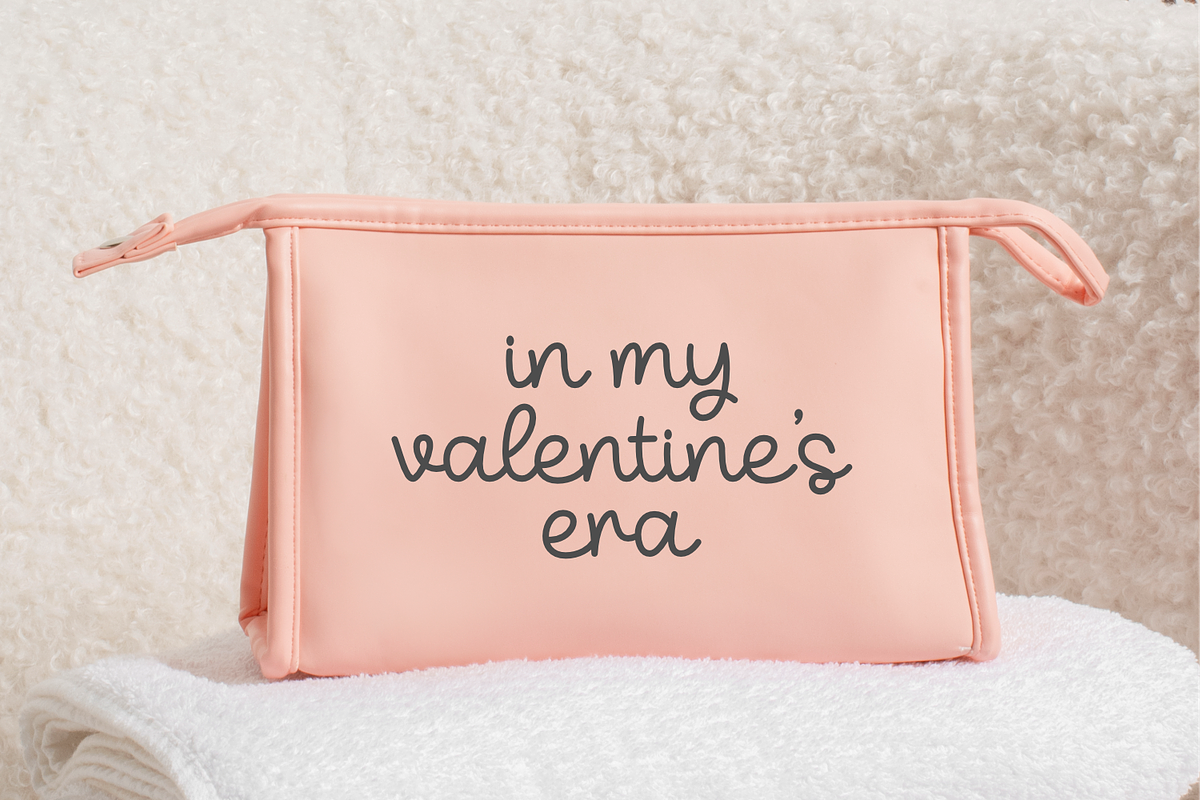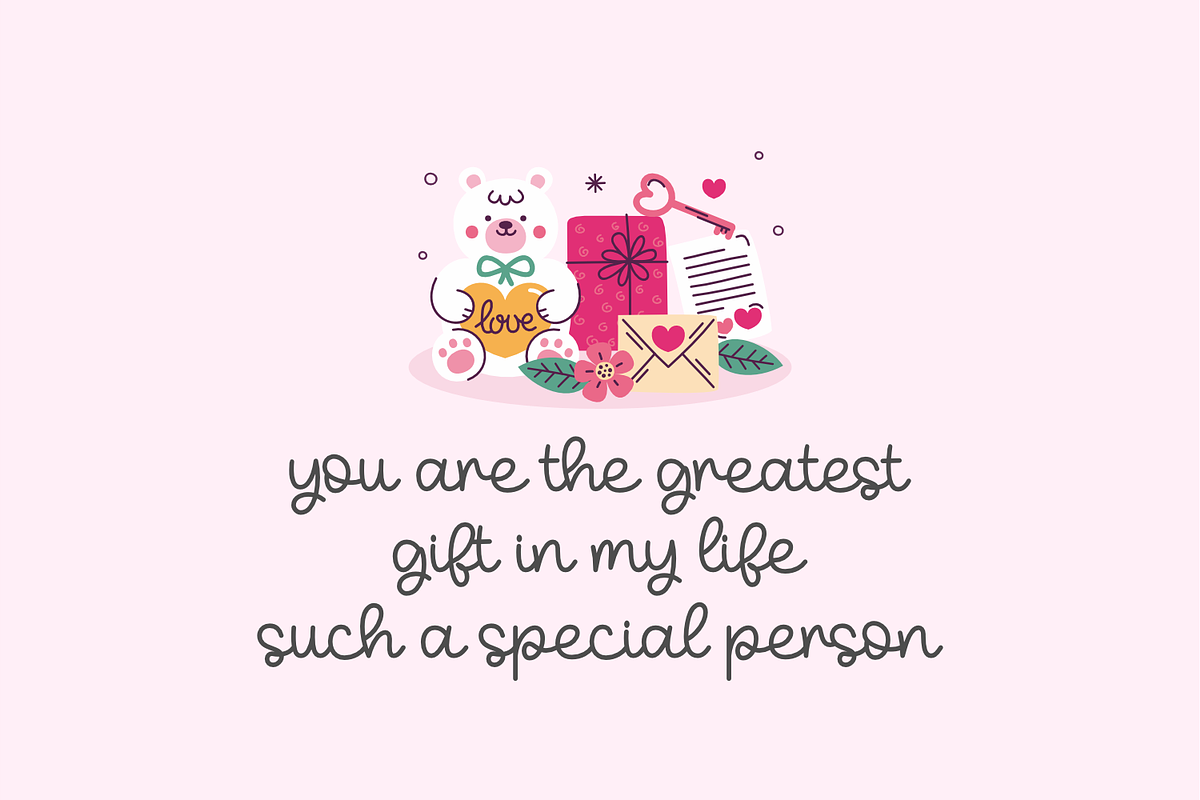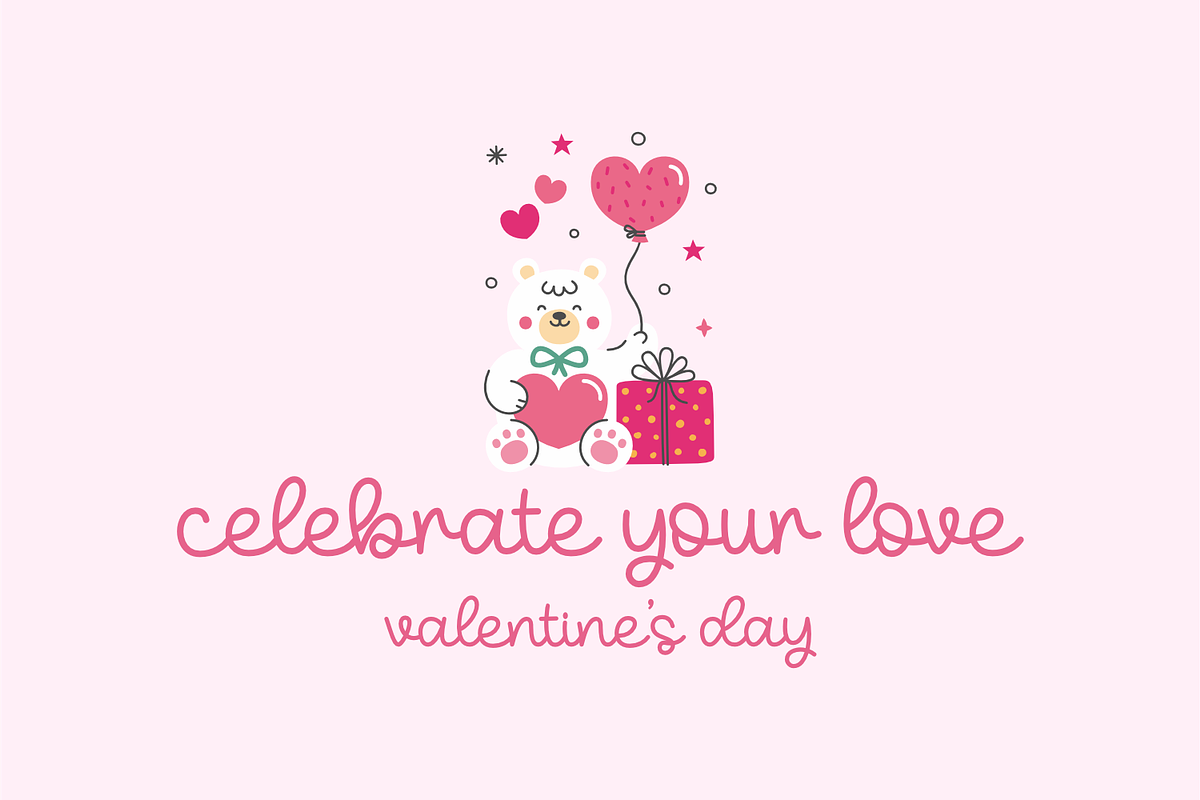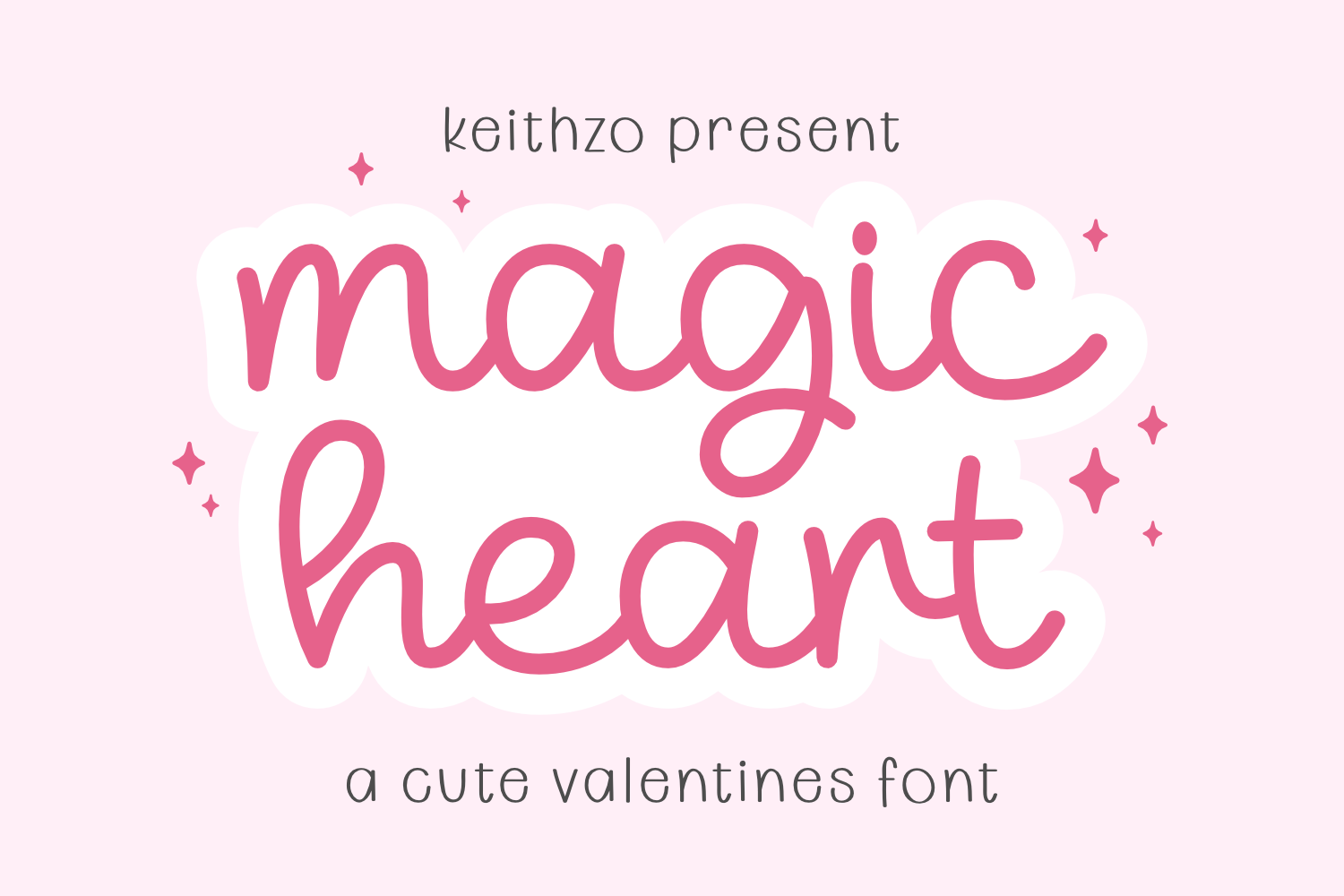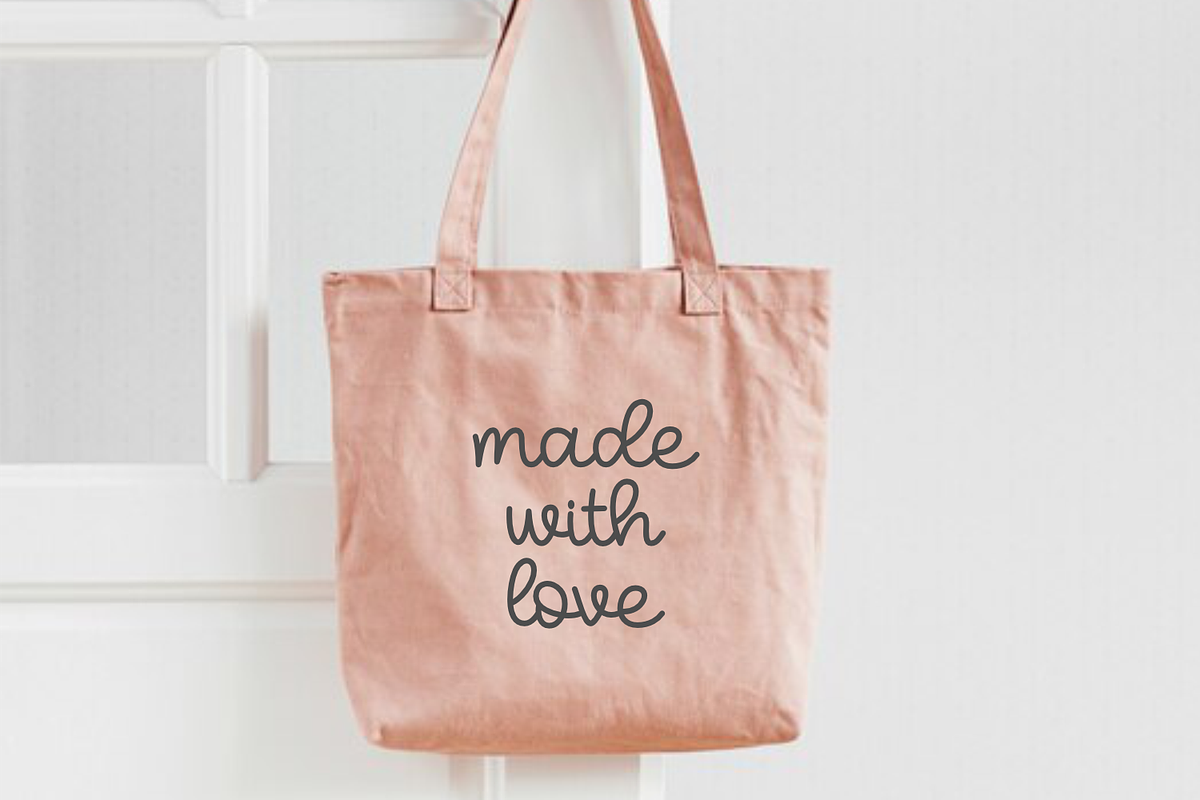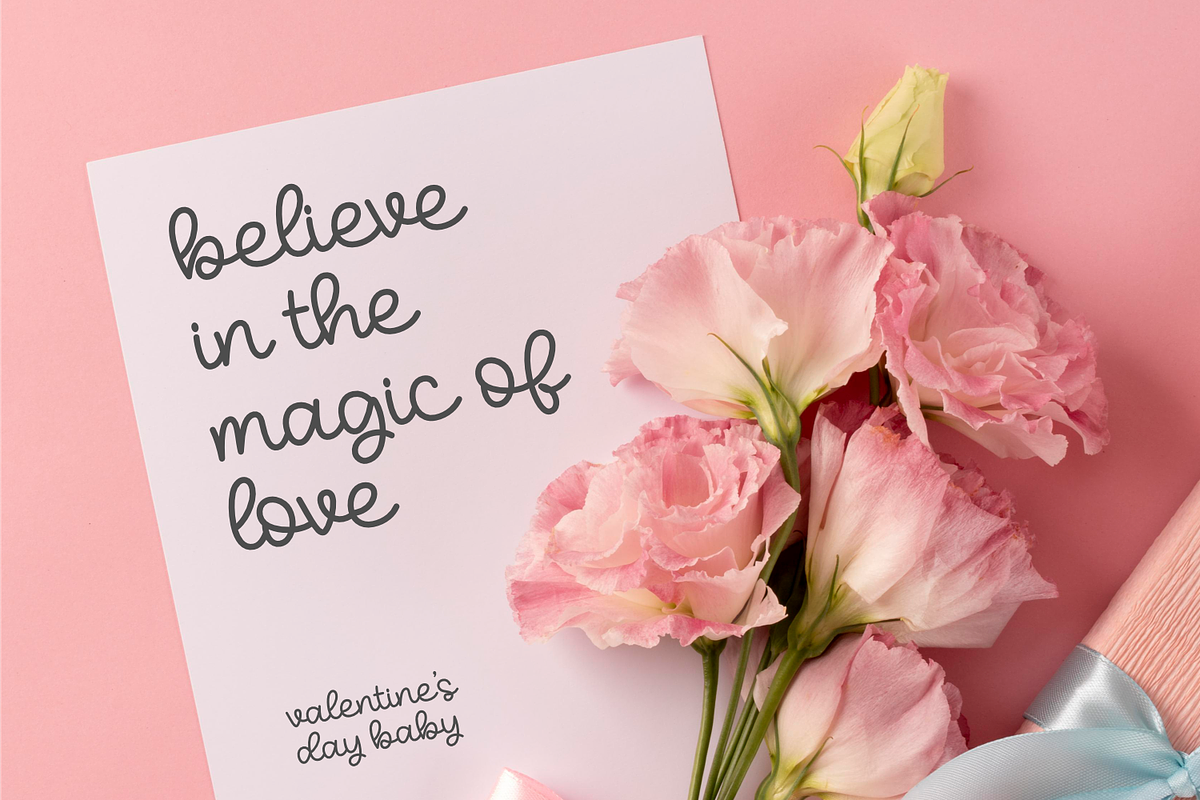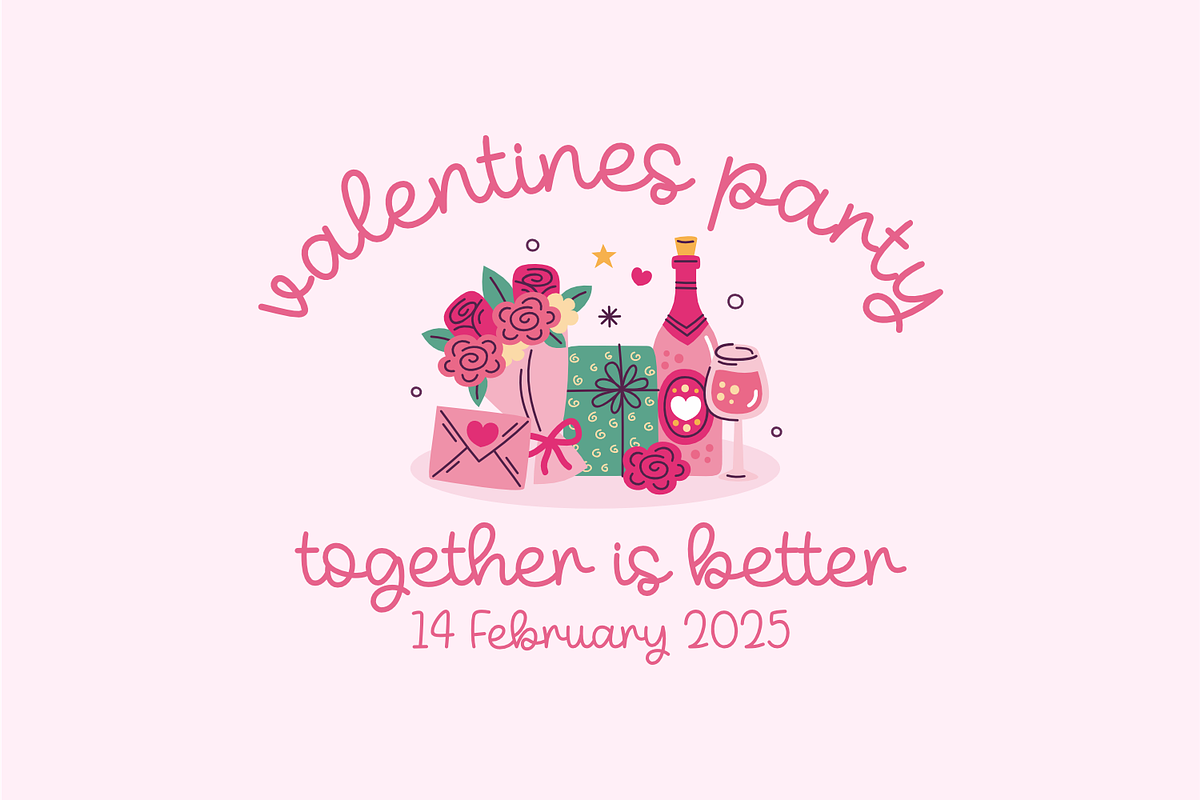
Magic Heart - Valentines Font
Immerse yourself in a joyful journey with every stroke of Magic Heart, an irresistibly cute monoline script font crafted to animate your creative ideas. Tailor-made to beautify a diversity of projects, this captivating font seamlessly transitions from bewitching pouch visuals to delightful totebag designs. Rekindle the romantic in you with heart-tugging greeting cards, distinct logos, and love-filled quotes — a perfect muse for Valentine’s Day. Morph an ordinary invitation into an emotive testament of love and set your artistic flair free to revel in the spirit of romance. Transform anything into extraordinary with Magic Heart’s unique charm, taking your design realm to a whole new level!